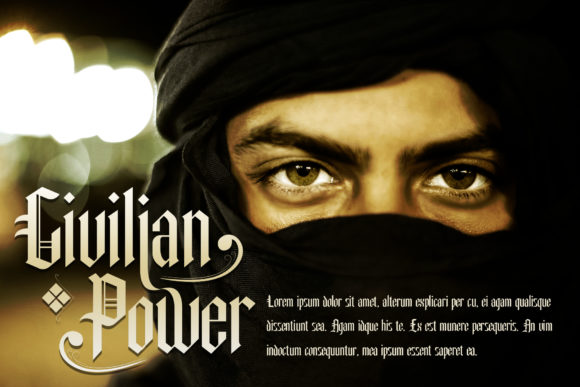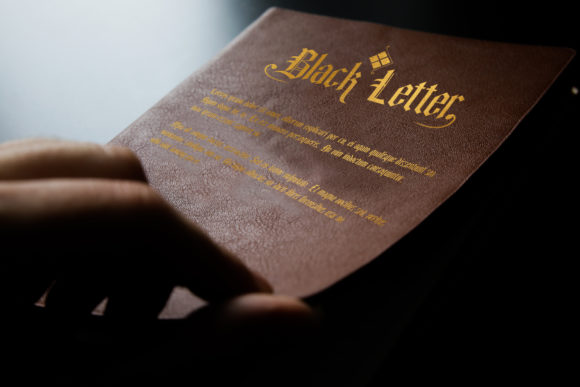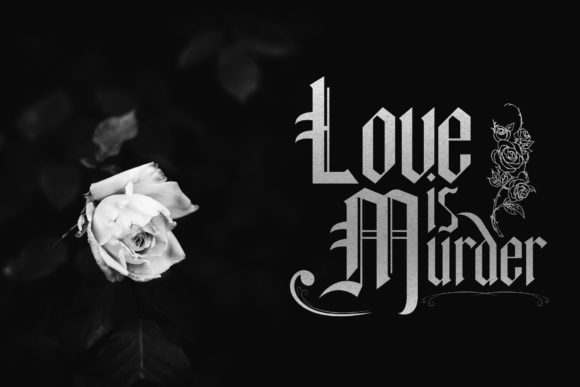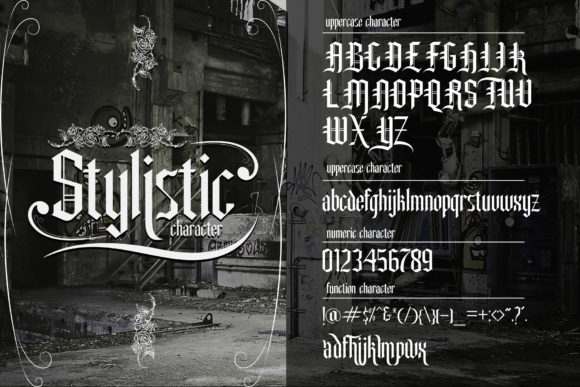
Introduction to Damaskush Font
Damaskush is an elegant vintage-themed display font with incredible lettering.
Use it to add a classic feel to any design project .
Key Features of Damaskush Font
Why Choose Damaskush Font?